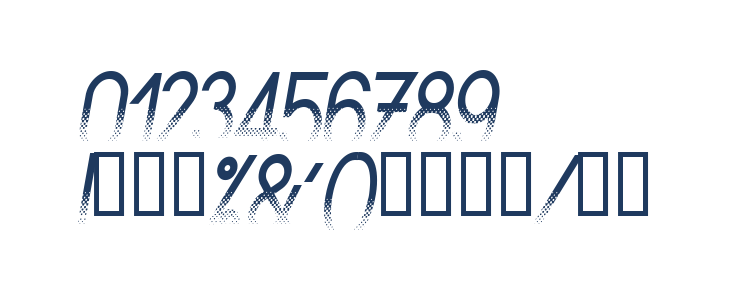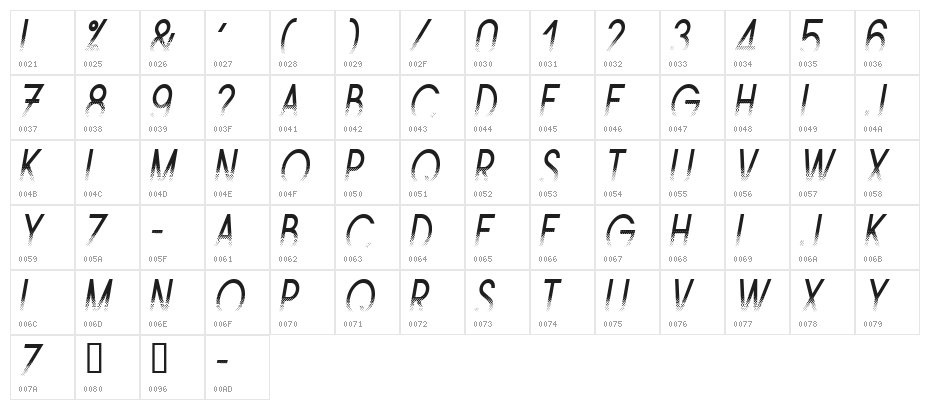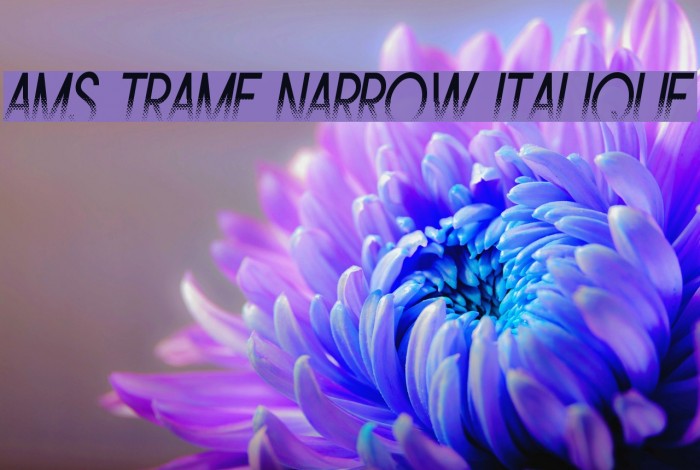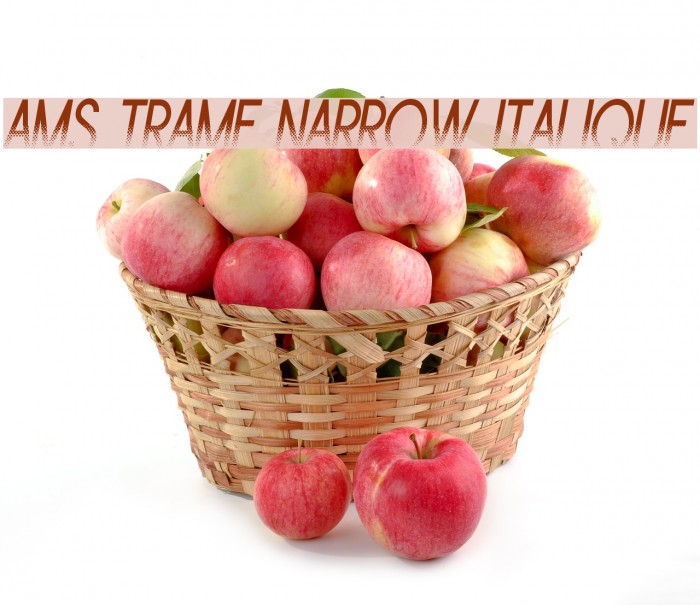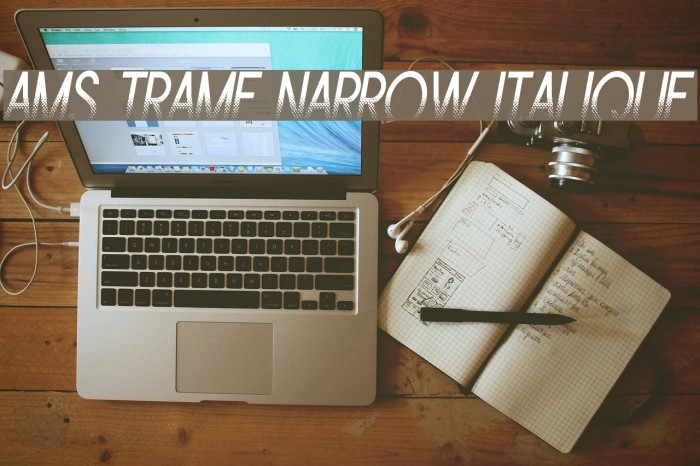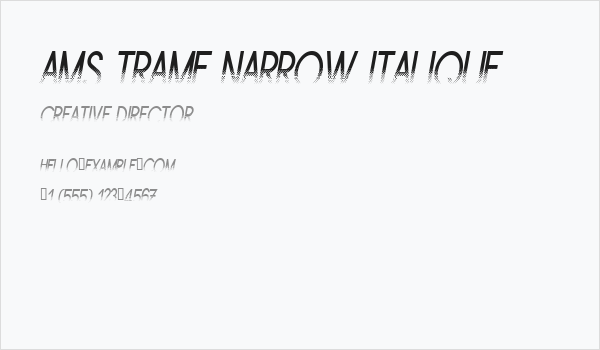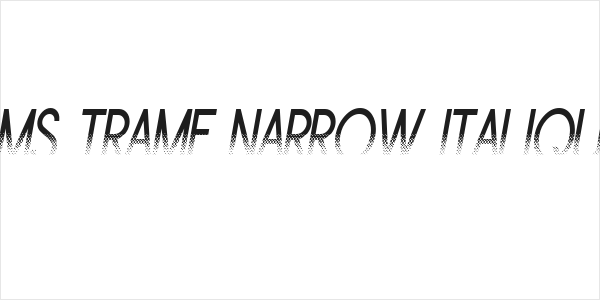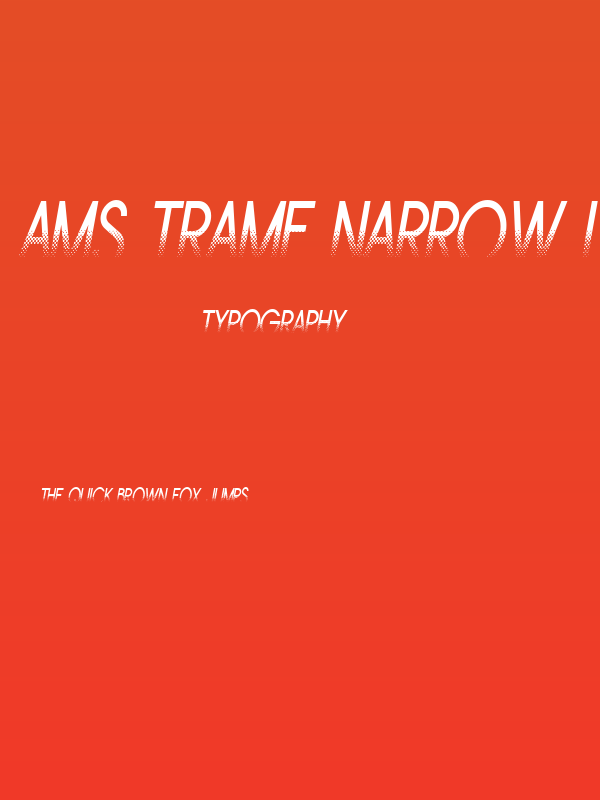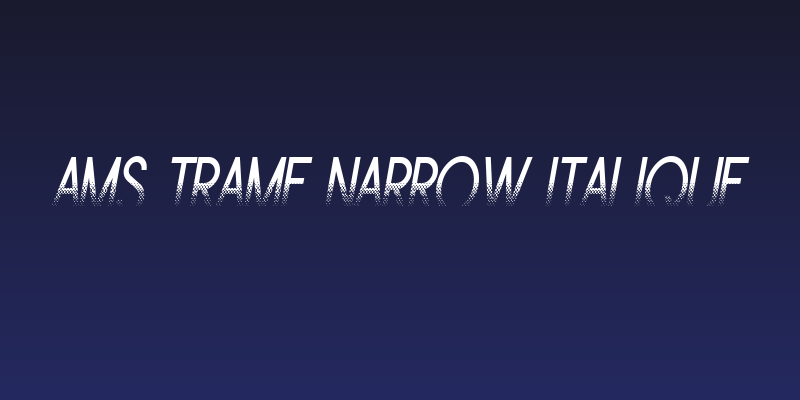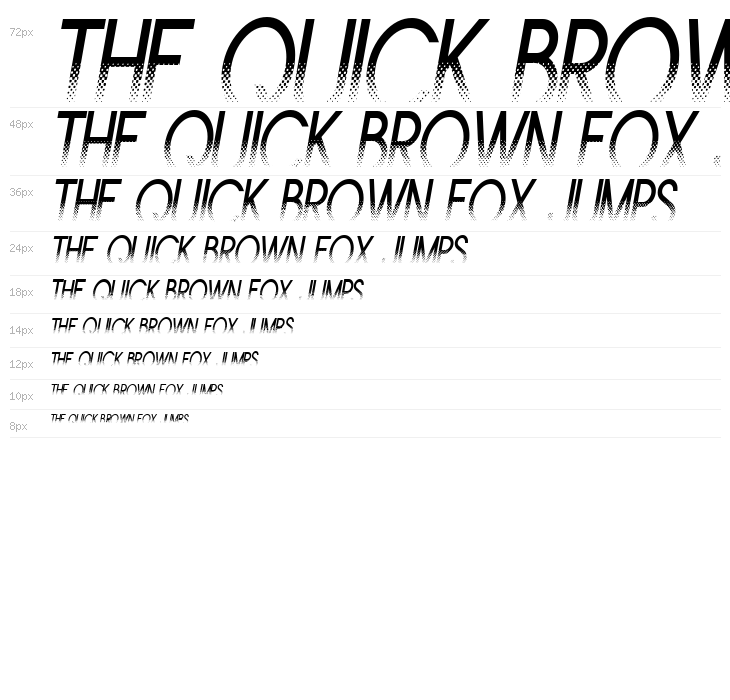
Ams Trame Narrow Italique Font
Ams Trame Narrow Italique Description
This font features a dynamic and modern design with a distinct italic slant, giving it a sense of motion and energy. The characters are narrow, enhancing the sleek and streamlined appearance. A unique halftone pattern is applied to the lower half of each character, creating a visually striking gradient effect that adds depth and texture. The uppercase and lowercase letters maintain a consistent style, with clean lines and sharp angles. The numerals and special characters follow the same design principles, ensuring uniformity across all glyphs. This font's innovative style makes it suitable for projects that require a bold and contemporary look.
| Proposed Projects | Ideal for branding, advertising, posters, and digital media that require a modern and energetic aesthetic. |